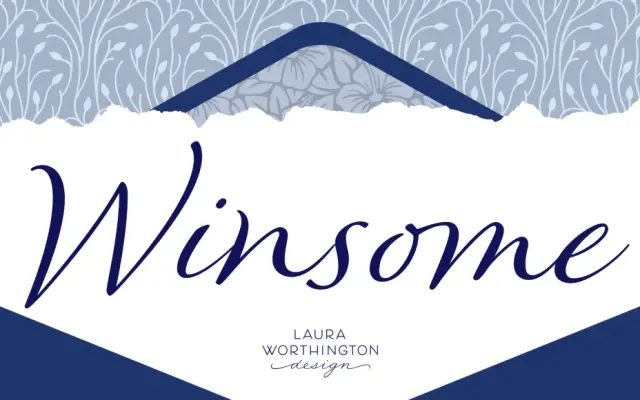
Winsome
A casual connected script with extensive OpenType customisation including 466 swash characters, 89 ligatures and 59 alternates.
Generous letter spacing and unfussy letterforms give this script an approachable, readable quality that sits between casual handwriting and formal calligraphy. A titling feature unlocks a disconnected version for added design flexibility. The OpenType suite has been coded for access without professional design software.
Winsome is a connected script that blends casual handwritten qualities with calligraphic influences, placing it firmly in the casual script subcategory.